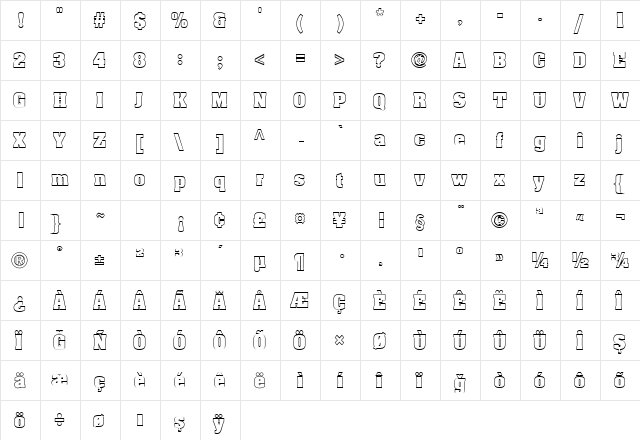
Aardvark Outline Normal
Design Context for Aardvark Outline Typeface
Aardvark Outline brings ornamental detail and strong personality to headlines and identities, where visual impact matters more than quiet functionality.
Font Pairing: Pair with a clean neutral sans-serif for body copy to let Aardvark Outline's character lead without overwhelming the composition.
Pro Tip: Treat Aardvark Outline as the centrepiece of your typographic hierarchy. One strong heading set in a decorative face can carry an entire layout.